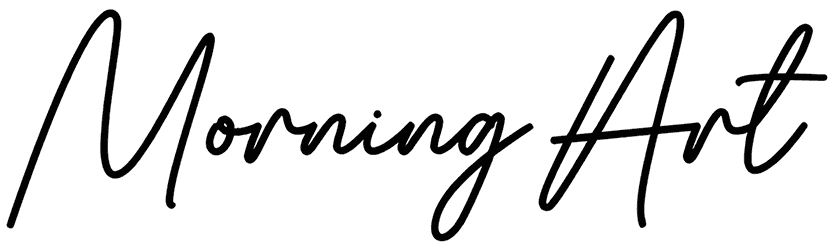
Morning Art Font
If you’re planning a project that requires a personal touch, Morning Art always works. Especially if you run it as a short text with attractive images. This handwritten font has successfully combined narrow lines and random hand movements to create a powerful font without additional decorations.
With this autograph font, you can create an excellent classic expression that fulfills your need for personal space and looks very good on packaging or greeting cards.